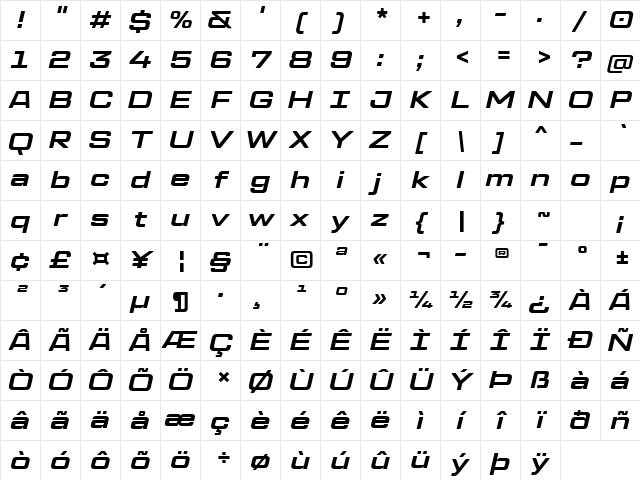
TT Lakes Neue Trl Exp Bd It
Designer: Designers Vika Usmanova, Ksenia Ushakova, Antonina Zhulkova, Tamara Streltsova, Anastasia Pogorelova, Marina Khodak. Technical designers Yulia Gonina, Ivan Gladkikh, Yuriy Nako, Viktor Rubenko.
Design Context for TT Lakes Neue Trl Exp
TT Lakes Neue Trl Exp is a composed and adaptable typeface that performs quietly and consistently across a wide range of design contexts. Its bold stroke weight gives it real presence on the page.